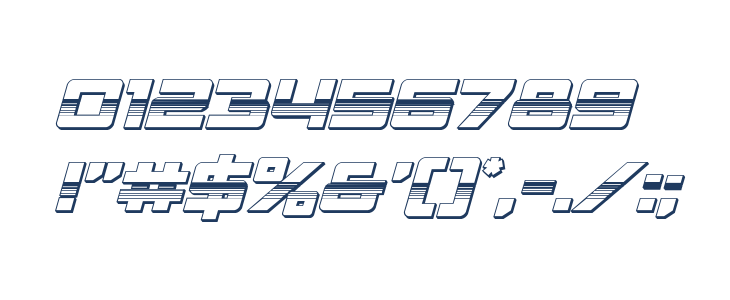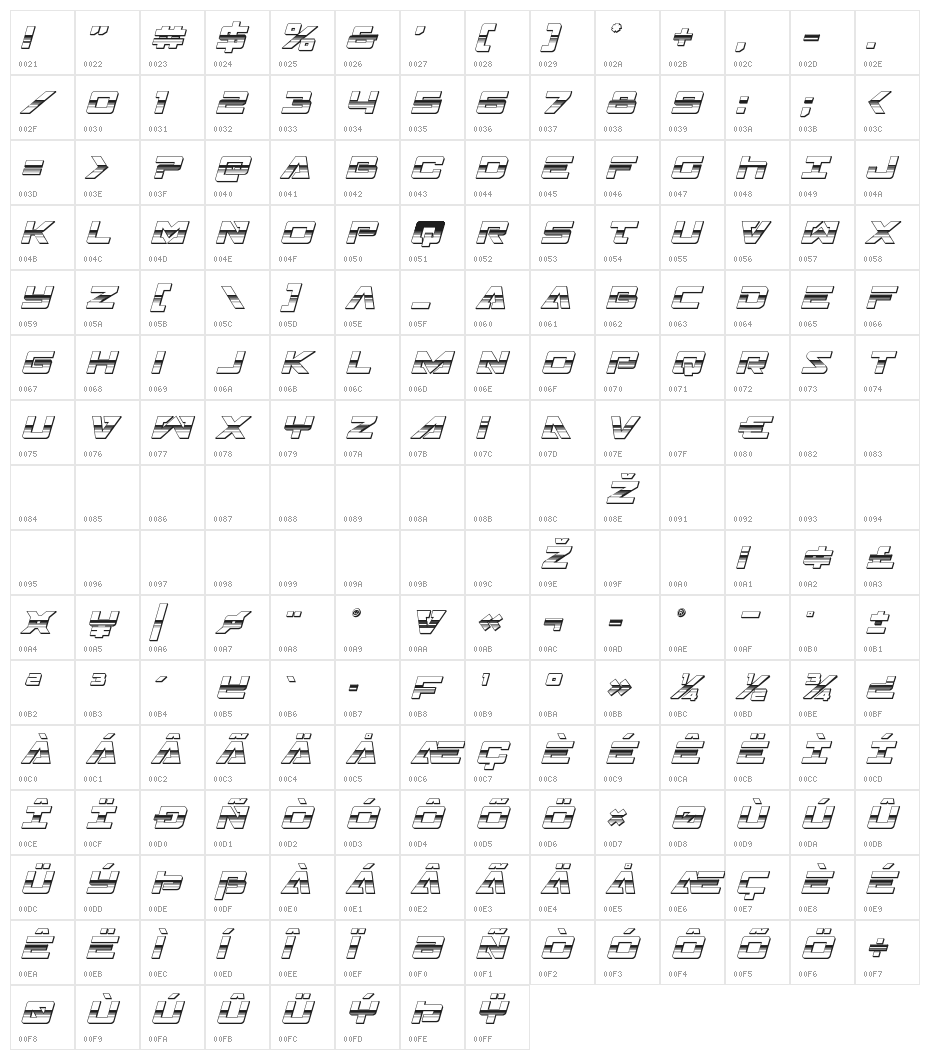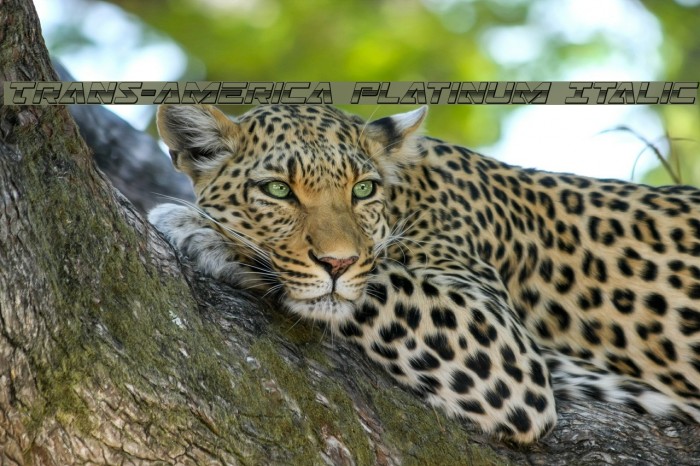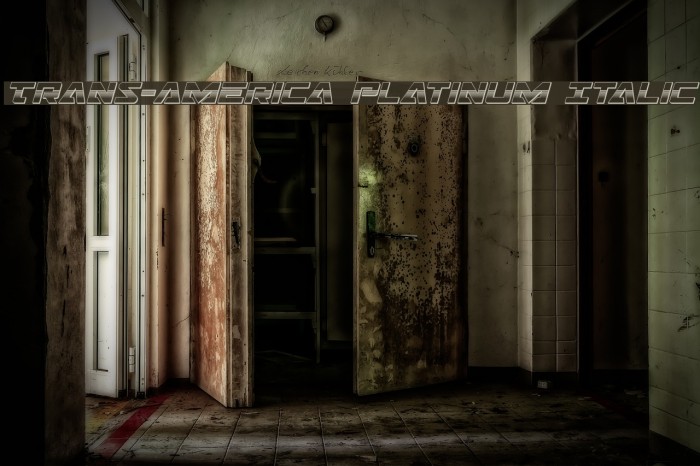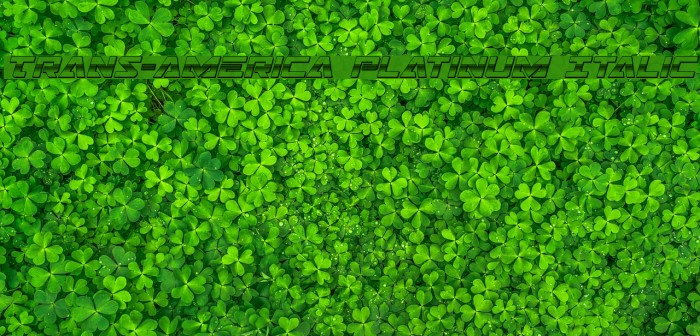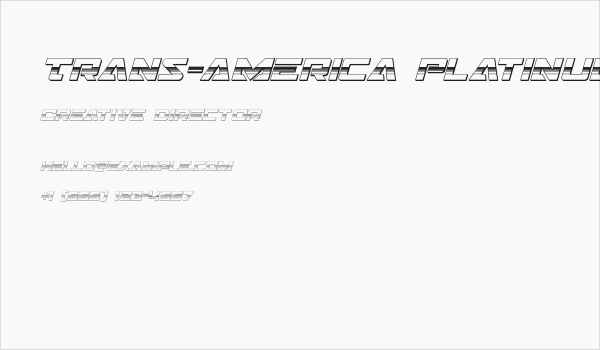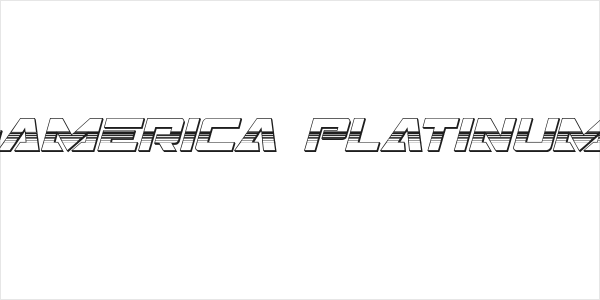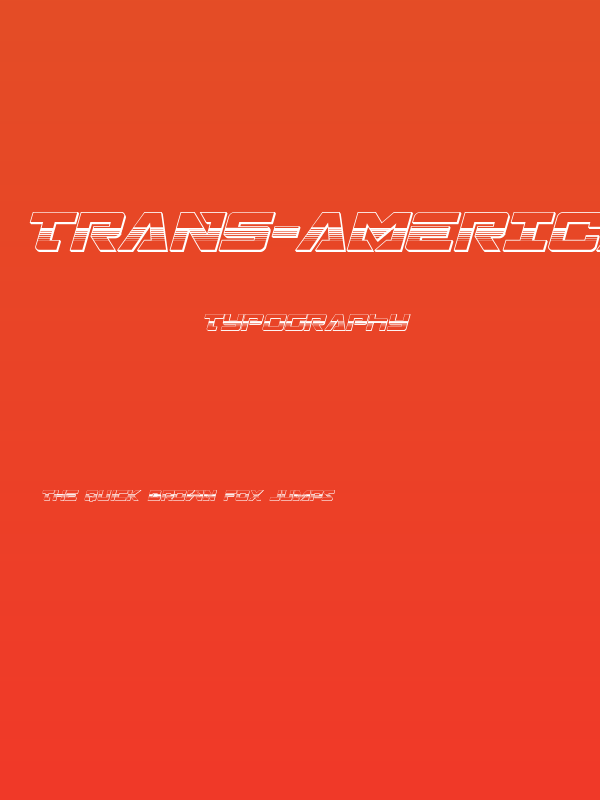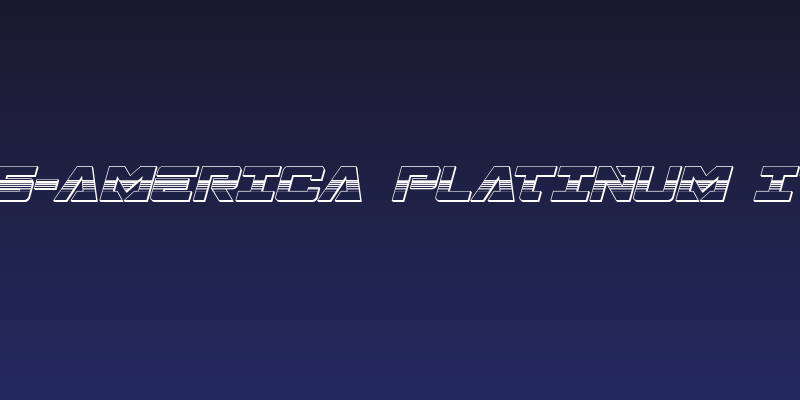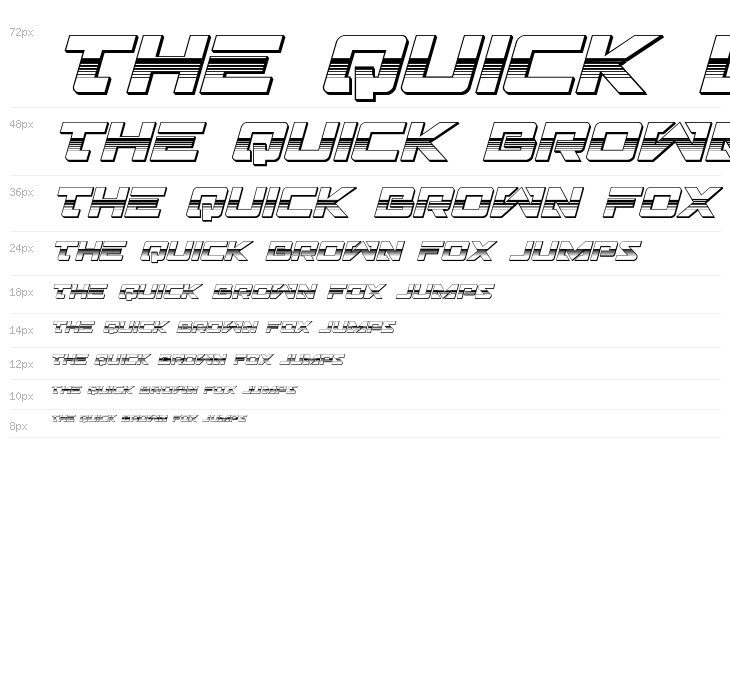
Trans-America Platinum Italic Font
Trans-America Platinum Italic Description
This font features a bold, futuristic design with a distinct three-dimensional effect created by parallel lines running through each character. The italicized style adds a dynamic, forward-moving appearance, making it ideal for projects that require a sense of speed or modernity. The uppercase letters are particularly striking, with sharp angles and a geometric structure that enhances their visual impact. The numerals and special characters maintain the same stylistic elements, ensuring consistency across all text. This font is perfect for attention-grabbing headlines, logos, and branding materials that aim to convey innovation and cutting-edge design.
| Proposed Projects | Ideal for technology branding, sci-fi movie posters, video game titles, and modern advertising campaigns. |